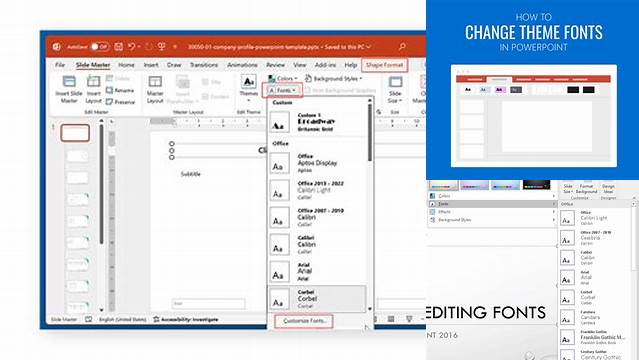
PowerPoint Theme Fonts: A Quick Guide To Beautiful Slides
Hey guys! Ever wondered how to make your PowerPoint presentations look super professional and consistent without spending hours tweaking every single slide? The secret lies in understanding and using theme fonts! This comprehensive guide will walk you through everything you need to know about theme fonts in PowerPoint, from what they are to how to customize them to make your presentations shine. Let's dive in!
What are Theme Fonts?
Theme fonts are a pre-defined pair of fonts (one for headings and one for body text) that PowerPoint uses to maintain a consistent look and feel across your entire presentation. Think of them as the unsung heroes of good design. Instead of manually selecting fonts for each text box, you can set theme fonts once, and PowerPoint will automatically apply them to all slides that use the default theme settings. This not only saves you a ton of time but also ensures that your presentation looks polished and professional.
These fonts are part of a broader design theme that includes colors, effects, and background styles. When you choose a theme, you're essentially selecting a complete visual package that works harmoniously together. The theme fonts are carefully chosen to complement the other elements of the theme, ensuring readability and visual appeal. Using theme fonts is especially useful when you are working with templates. Templates are professionally designed and have all their fonts set up. They are an easy way to create professional looking presentations. You can use theme fonts to easily swap fonts to match your brand, while not affecting the structure of the slides. If you have used the theme fonts appropriately, your whole presentation will change at once. If you've ever opened a PowerPoint template and wondered how the designers made everything look so cohesive, chances are they were leveraging the power of theme fonts. By mastering this feature, you can achieve a similar level of design sophistication in your own presentations. It also makes collaboration easy. Imagine several people working on the same presentation. If everyone sticks to the theme fonts, the final product will look unified, even if different people contributed different sections. Theme fonts are your secret weapon for creating presentations that look like they were designed by a pro.
Why Use Theme Fonts?
So, why should you bother using theme fonts? Well, there are several compelling reasons.
- Consistency: Using theme fonts ensures a consistent look throughout your entire presentation. No more jarring font changes from slide to slide!
- Time-Saving: Imagine manually changing the font on every single slide. With theme fonts, you set it once, and you're done!
- Professionalism: A consistent and well-chosen font scheme instantly makes your presentation look more polished and professional.
- Easy Customization: Theme fonts are easy to change and customize, allowing you to quickly experiment with different looks.
- Accessibility: By using standard theme fonts, you make your presentation more accessible to a wider audience, as these fonts are typically well-supported across different devices and platforms.
For instance, think about presenting to a client. A well-designed presentation, using consistent theme fonts, shows that you've paid attention to detail and care about your work. It conveys a sense of professionalism and competence. On the other hand, a presentation with mismatched fonts and inconsistent formatting can make you look unprepared and unprofessional. Furthermore, theme fonts can significantly speed up the presentation creation process. Instead of spending valuable time tweaking individual text boxes, you can focus on the content of your presentation. This efficiency allows you to create more presentations in less time, which can be a major advantage in fast-paced business environments. Theme fonts contribute to the overall readability of your presentation. By choosing fonts that are easy to read and visually appealing, you can keep your audience engaged and prevent eye strain. This is especially important for presentations with a lot of text or complex data.
How to Customize Theme Fonts
Okay, now for the fun part: customizing your theme fonts! Here's how to do it step-by-step:
- Open the Slide Master: Go to the "View" tab and click on "Slide Master." This is where the magic happens!
- Access the Fonts Menu: In the Slide Master tab, click on the "Fonts" dropdown menu. You'll see a list of pre-defined font themes.
- Choose a Pre-defined Theme Font: Select one of the existing theme fonts to quickly change the look of your presentation. PowerPoint offers a variety of built-in font combinations that you can use as a starting point.
- Customize Your Own: To create a custom font theme, select "Customize Fonts..." at the bottom of the dropdown menu. This opens a dialog box where you can choose your own fonts for headings and body text.
- Select Heading Font: Choose the font you want to use for your slide titles and headings. Opt for something bold and eye-catching to grab attention.
- Select Body Font: Choose the font you want to use for the main body text of your slides. Go for something clean and readable to ensure your audience can easily follow along.
- Save Your Changes: Once you've selected your fonts, click "Save." Your new theme fonts will now be applied to all slides that use the default theme settings.
- Close Slide Master: Click "Close Master View" to return to your regular presentation view.
Experiment with different font combinations to find what works best for your presentation. Remember to consider your audience and the overall tone of your presentation when choosing fonts. For example, a formal presentation might call for more conservative fonts, while a creative presentation might benefit from more unique and playful fonts. It's also a good idea to test your font choices on different screens and projectors to ensure they are readable in various settings. Once you've created a custom font theme, you can save it for future use. This is a great way to maintain brand consistency across all of your presentations. To save your custom font theme, simply go to the "Design" tab and click on the "Fonts" dropdown menu. Then, select "Save Current Theme." Give your theme a name and save it in a location where you can easily access it later.
Tips for Choosing the Right Theme Fonts
Choosing the right theme fonts can make or break your presentation. Here are a few tips to help you make the best choices:
- Readability is Key: Always prioritize readability. Choose fonts that are easy to read on a screen, even from a distance.
- Consider Your Audience: Think about your audience and choose fonts that are appropriate for their age, background, and the context of your presentation.
- Match the Tone: Select fonts that match the overall tone and style of your presentation. A serious presentation calls for serious fonts, while a fun presentation can handle more playful fonts.
- Limit Your Choices: Stick to a maximum of two fonts (one for headings and one for body text) to maintain a clean and consistent look.
- Test Your Fonts: Always test your fonts on different screens and projectors to ensure they are readable in various settings.
Selecting the right font sizes for your theme fonts is just as important as choosing the fonts themselves. Make sure your heading fonts are large enough to stand out and grab attention, but not so large that they overwhelm the slide. Your body text should be large enough to be easily readable, but not so large that it takes up too much space on the slide. A good rule of thumb is to use a heading font size of around 36-44 points and a body text font size of around 24-28 points. However, these are just guidelines, and you may need to adjust them based on the specific fonts you choose and the layout of your slides. Font pairing, the art of combining different fonts in a visually appealing way, is a skill that can greatly enhance the look of your presentations. When choosing theme fonts, look for font pairings that complement each other and create a sense of harmony. A classic pairing is a serif font for headings and a sans-serif font for body text, or vice versa. You can find inspiration for font pairings online or by studying the design of professional publications and websites.
Examples of Effective Theme Font Combinations
Need some inspiration? Here are a few examples of effective theme font combinations that you can use in your presentations:
- Headings: Arial Black, Body: Arial
- Headings: Montserrat, Body: Open Sans
- Headings: Playfair Display, Body: Montserrat
- Headings: Roboto Slab, Body: Roboto
- Headings: Raleway, Body: Lato
These are just a few suggestions, of course. The best font combination for your presentation will depend on your specific needs and preferences. Don't be afraid to experiment and try out different combinations until you find something that you love. One tip is to use online font pairing tools to help you discover new and interesting font combinations. These tools allow you to enter a font and then suggest other fonts that pair well with it. They can be a great way to find unexpected and visually appealing font combinations that you might not have considered otherwise. Another useful resource is to study the design of professional websites and publications. Pay attention to the font combinations they use and try to identify the principles that make them work. By analyzing the work of experienced designers, you can gain a better understanding of how to create effective and visually appealing font pairings. Remember that the goal of font pairing is to create a sense of visual harmony and balance. The fonts should complement each other and work together to create a cohesive and professional look. Avoid using fonts that clash or compete with each other, as this can be distracting and make your presentation look unprofessional.
Even with a good understanding of theme fonts, it's easy to make mistakes. Here are a few common pitfalls to avoid:
- Using Too Many Fonts: Stick to a maximum of two fonts to avoid a cluttered and unprofessional look.
- Choosing Unreadable Fonts: Always prioritize readability. Avoid fonts that are too fancy or decorative.
- Ignoring Font Sizes: Make sure your font sizes are appropriate for your audience and the size of the screen.
- Inconsistent Formatting: Ensure that your fonts are used consistently throughout your entire presentation.
- Not Testing Your Fonts: Always test your fonts on different screens and projectors to ensure they are readable in various settings.
Another mistake to avoid is using default theme fonts without any customization. While the default theme fonts can be a good starting point, they may not be the best choice for your specific presentation. Take the time to experiment with different font combinations and find something that truly reflects your brand and message. Don't be afraid to break the rules and try something new, as long as it looks good and is easy to read. One of the biggest mistakes you can make is using fonts that are not compatible with the devices or platforms that your audience will be using. Before you finalize your presentation, make sure to test it on a variety of devices and platforms to ensure that the fonts display correctly. If you are presenting remotely, it's especially important to use standard fonts that are widely available, such as Arial, Times New Roman, or Calibri. These fonts are less likely to cause problems when your presentation is viewed on different computers or devices. Finally, avoid using fonts that are too small or too large. Small fonts can be difficult to read, especially for people with vision problems, while large fonts can be overwhelming and distracting. Aim for a font size that is comfortable to read and that fits well within the overall layout of your slides.
Theme fonts are a powerful tool for creating professional and consistent PowerPoint presentations. By understanding how to use and customize theme fonts, you can save time, improve the look of your presentations, and make a lasting impression on your audience. So go ahead, experiment with different fonts, and create presentations that truly shine!